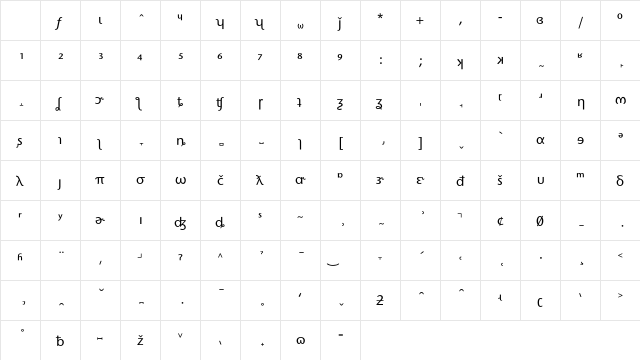
Complete StoneSansPhonEF MedPlus glyph index. Displaying only characters natively supported by StoneSansPhonEF MedPlus font.
StoneSansPhonEF is a composed and adaptable typeface that performs quietly and consistently across a wide range of design contexts.